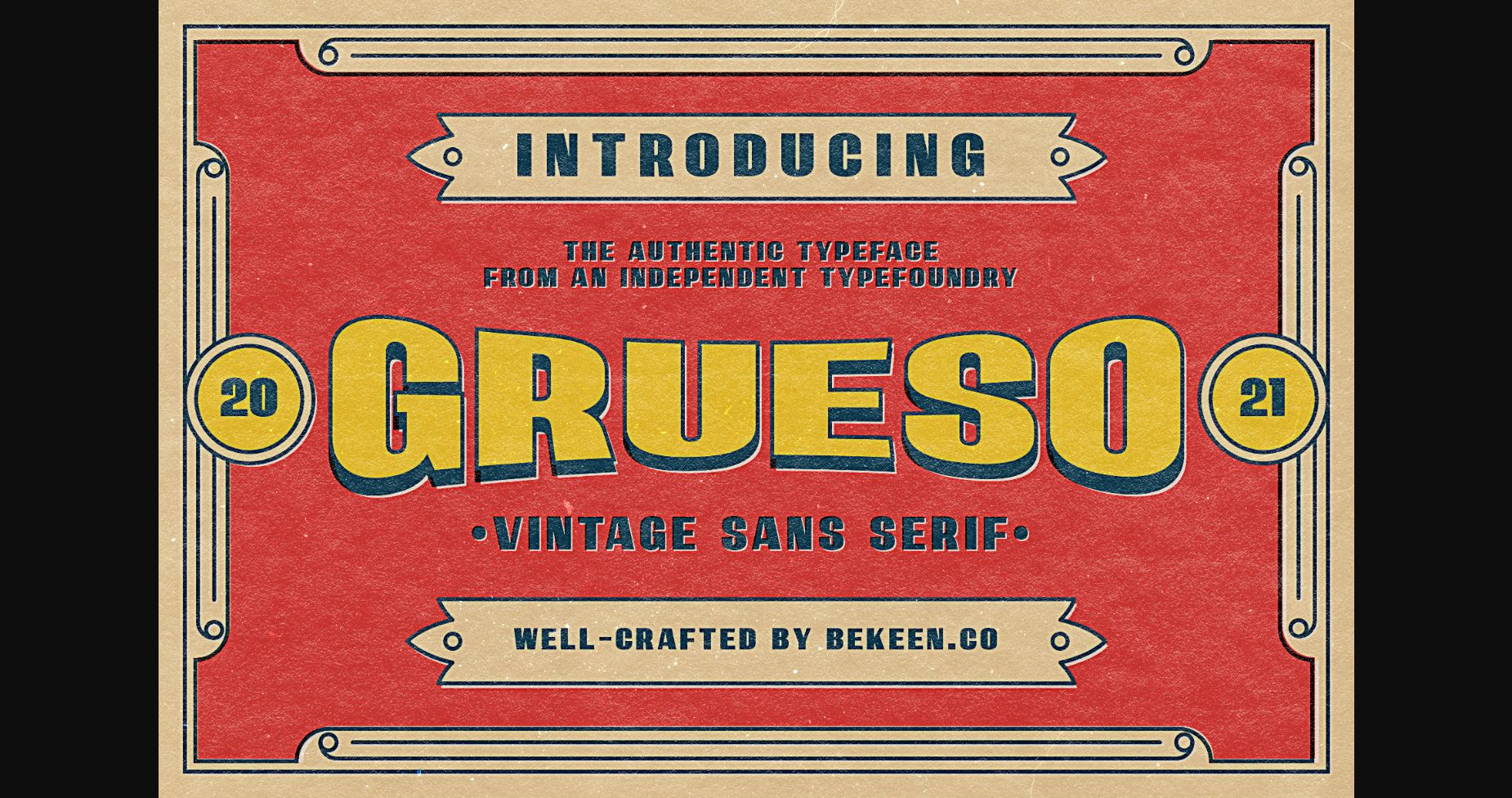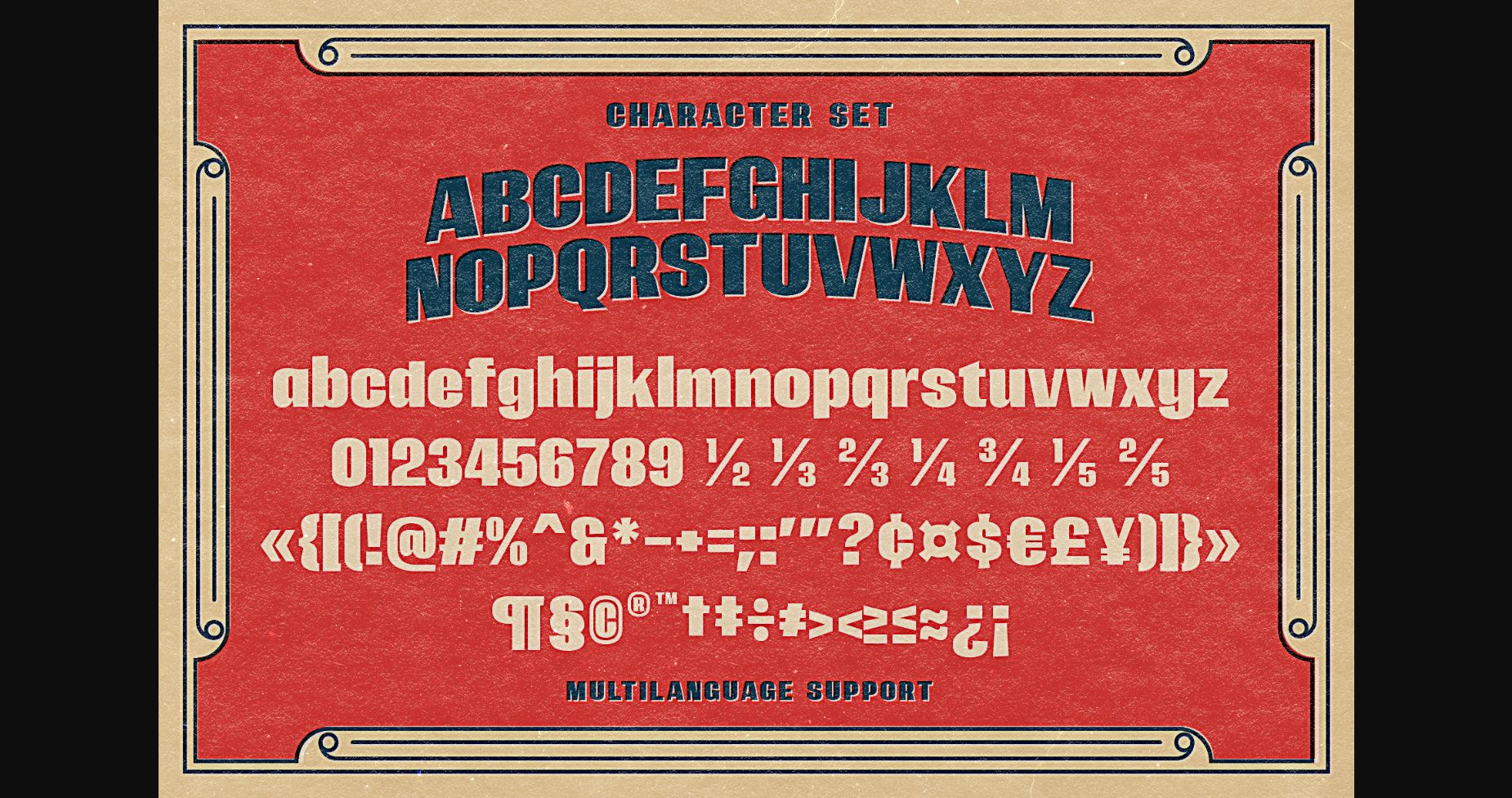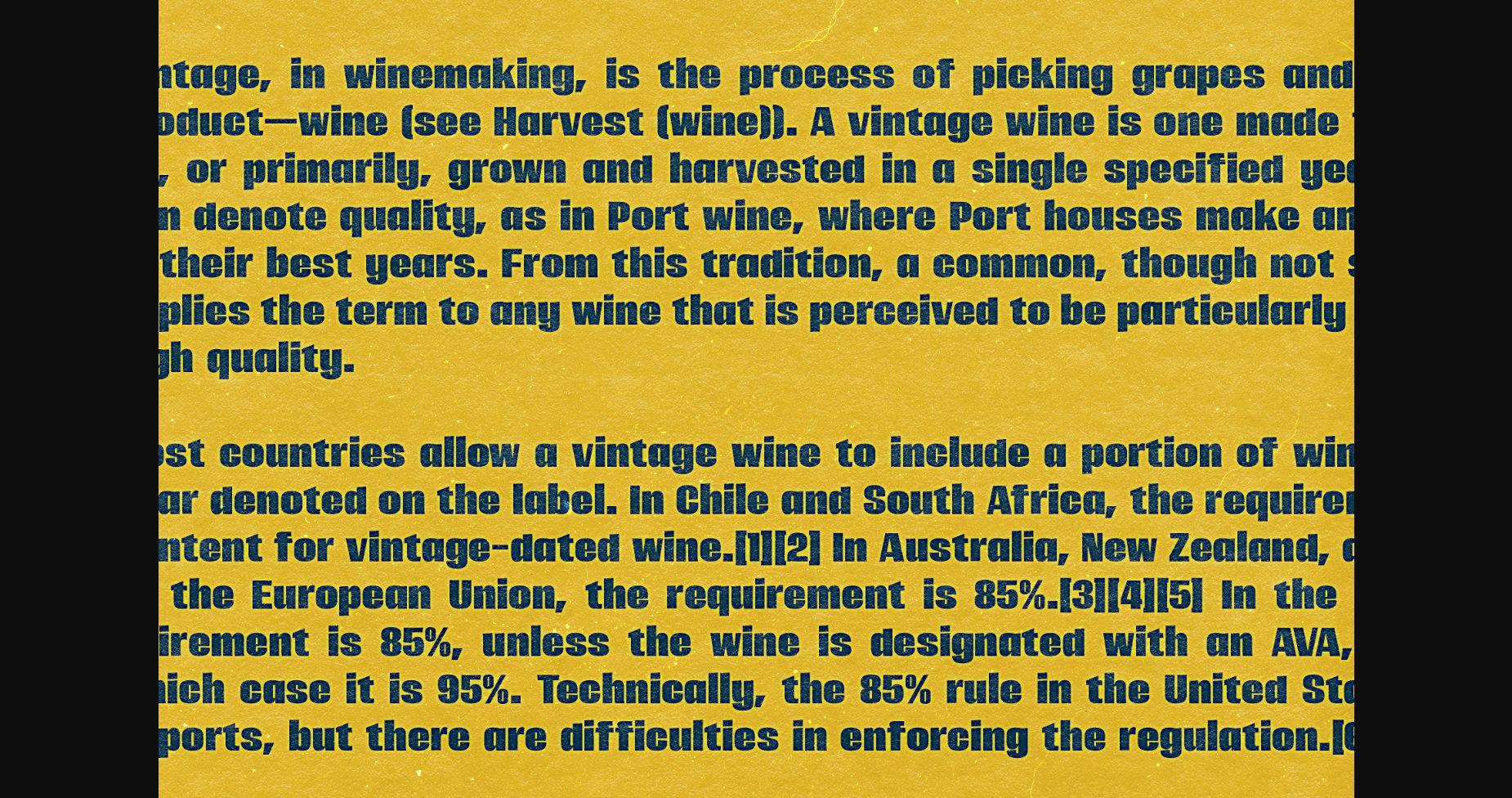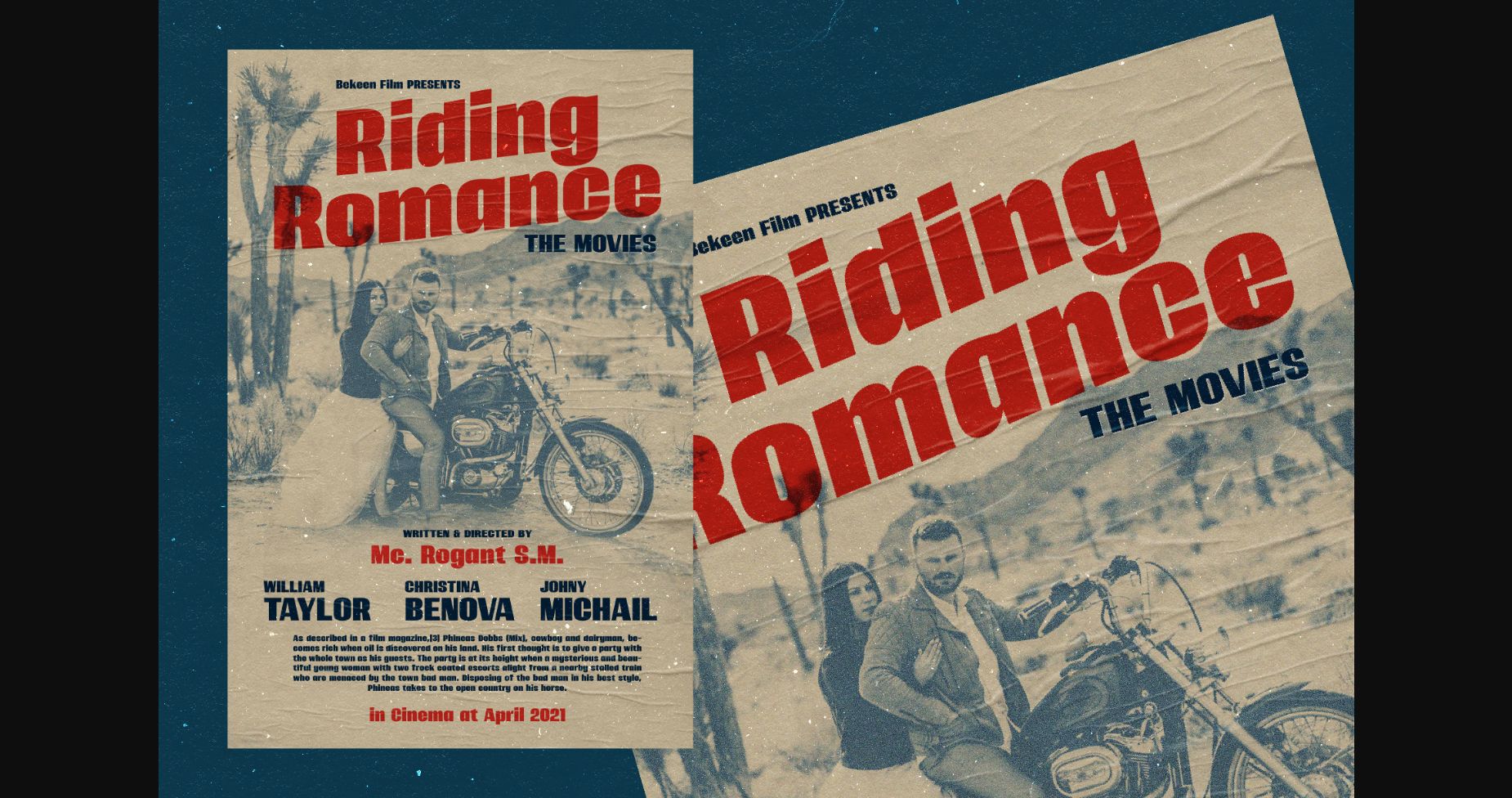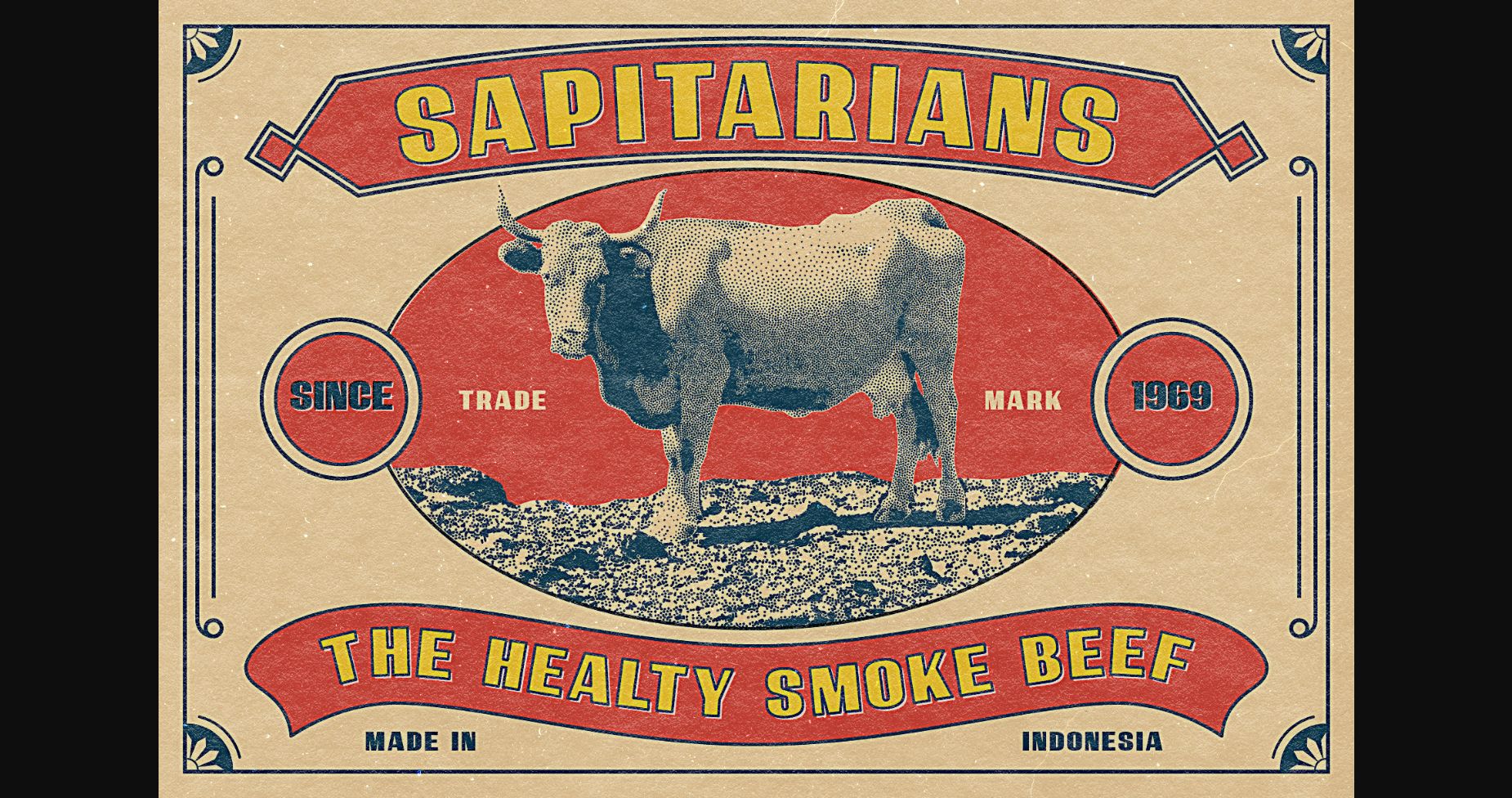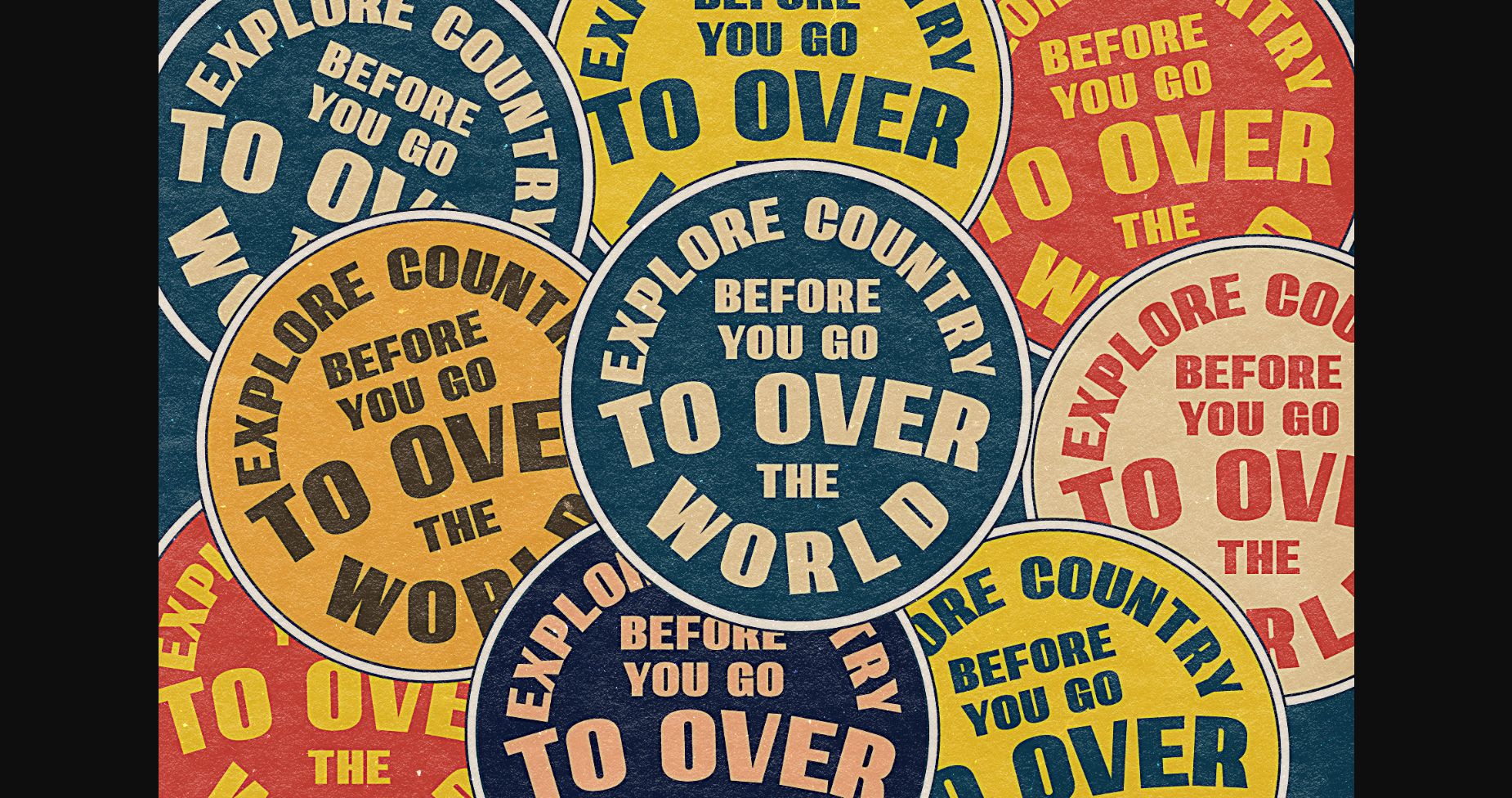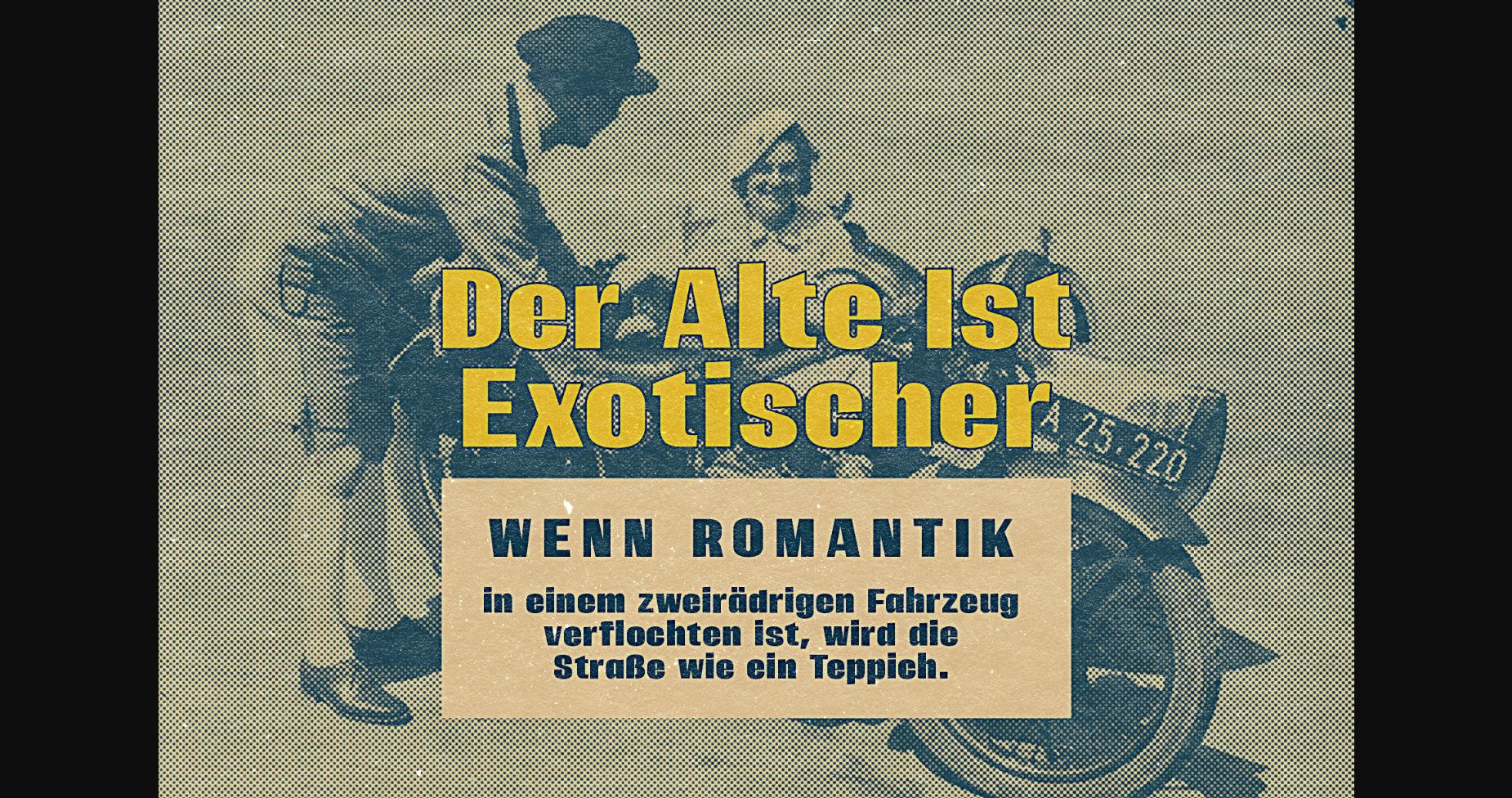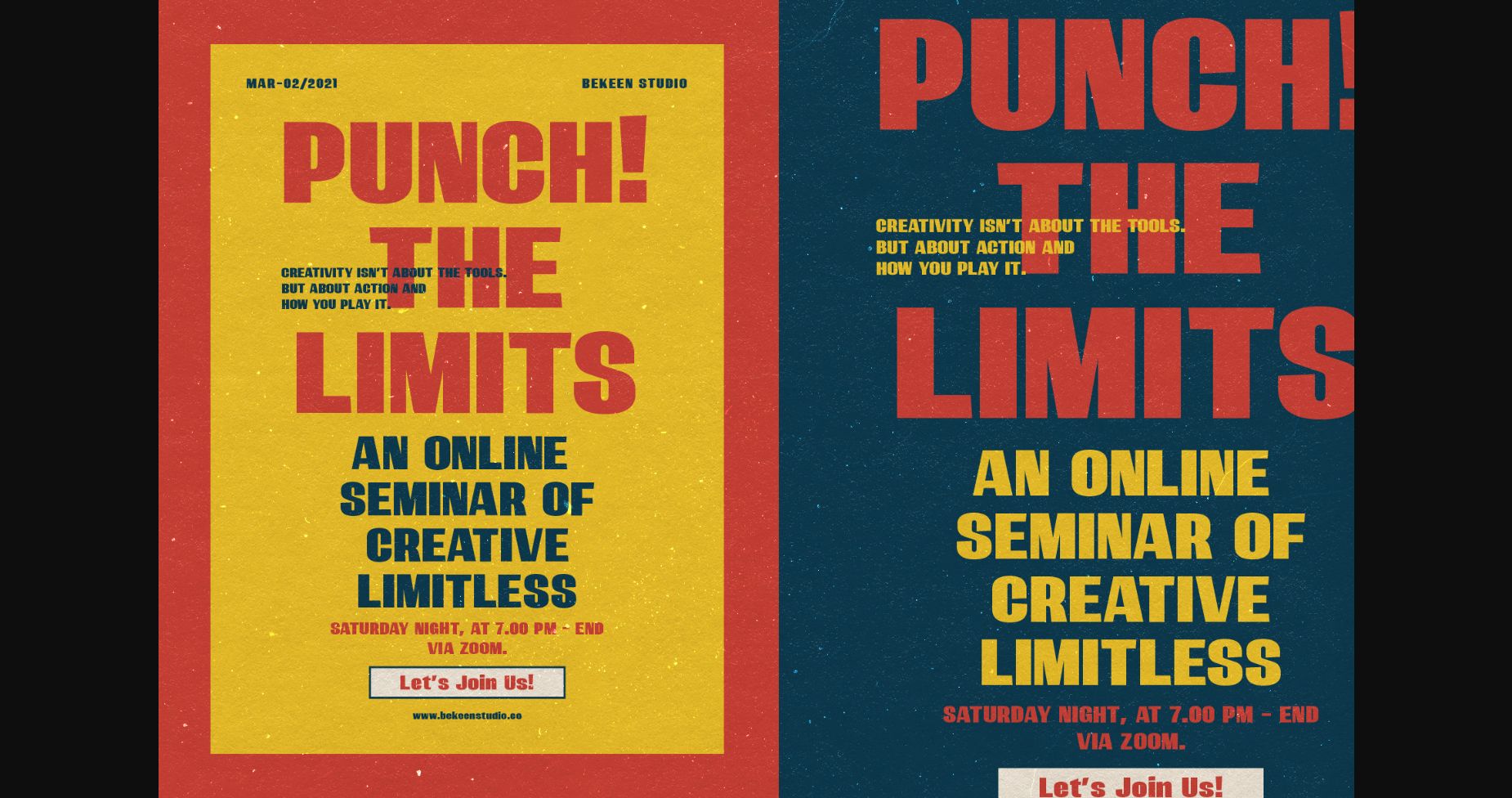
HomeSans Serif FontsGrueso Font Sans Serif Fonts Grueso Font FacebookXPinterestWhatsApp 1 of 11 ... Grueso Font Poster 2... Grueso Font Poster 3... Grueso Font Poster 4... Grueso Font Poster 5... Grueso Font Poster 6... Grueso Font Poster 7... Grueso Font Poster 8... Grueso Font Poster 9... Grueso Font Poster 10... Grueso Font Poster 11... About Grueso Font Grueso is a bold sans serif font with a vintage feel. Use this font for any crafting project that requires a personalized look! DOWNLOAD NOW People also explored Oceanic Cocktail Font Brittany Rays Duo Font Couple Love Monogram Font Dragon Font Highlight Font Atlantis Billionthine Script Font Random Font Dahgo Font 404 0 TagsGruesoGrueso Font Previous articleGleams FontNext articleRegular Font LEAVE A REPLY Cancel reply Comment: Please enter your comment! Name:* Please enter your name here Email:* You have entered an incorrect email address! Please enter your email address here Website: Save my name, email, and website in this browser for the next time I comment. Personal Use Free BD Nokio Personal Use Free Read more about this font Wallabys Junior Personal Use Free Read more about this font Creativo Personal Use Free Read more about this font Aragon Personal Use Free Read more about this font BLOG Modern Sans-Serif Fonts That Brands Love in 2025 In 2025, modern sans-serif fonts remain a top choice for brands looking to project clarity, professionalism, and... Best Fonts for YouTube Videos: Make Your Thumbnails Stand Out Top 7 Google Fonts Alternatives for Faster and Privacy-Friendly Web Design (2025) Free Fonts Risk: Why Free Fonts Can Be Dangerous for Designers